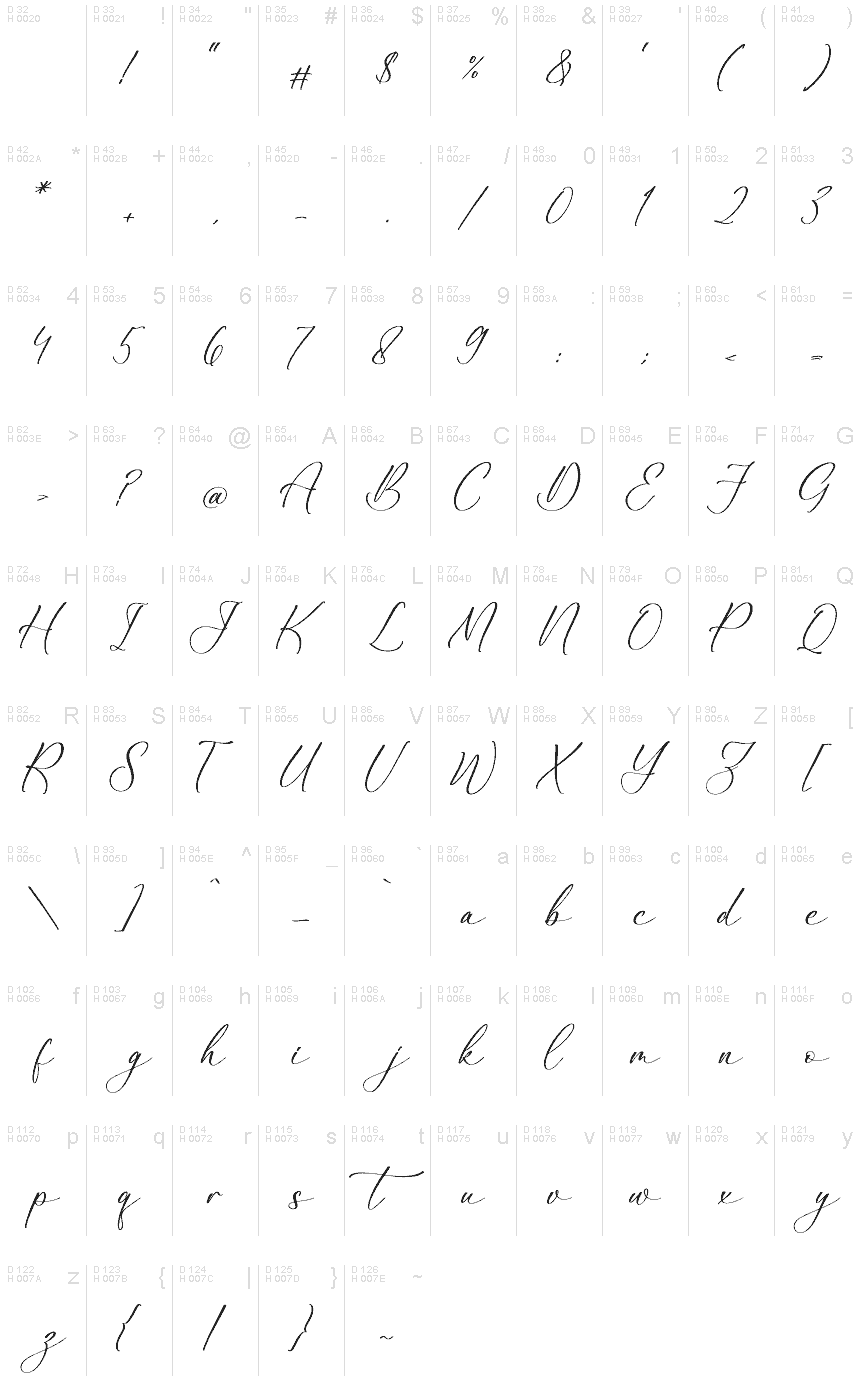
Madraloney Chromila
Madraloney Chromila font by Perspectype Studio - Letterena.com is a handwritten font with an elegant and sophisticated design. The vintage-inspired letters show flowing movement and are full of expression. Used alone or in combination, they convey the author’s personal touch in writings of all sorts.
The free light font would be useful to designers who need a versatile font for branding projects. It would look great on stationery designs and invitations where it can add some elegance to business cards, brochures, letterheads, greeting cards, label stickers, and posters.